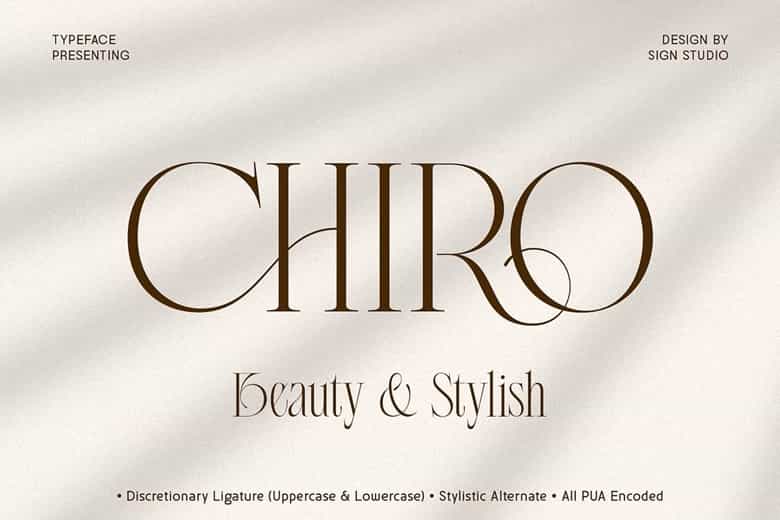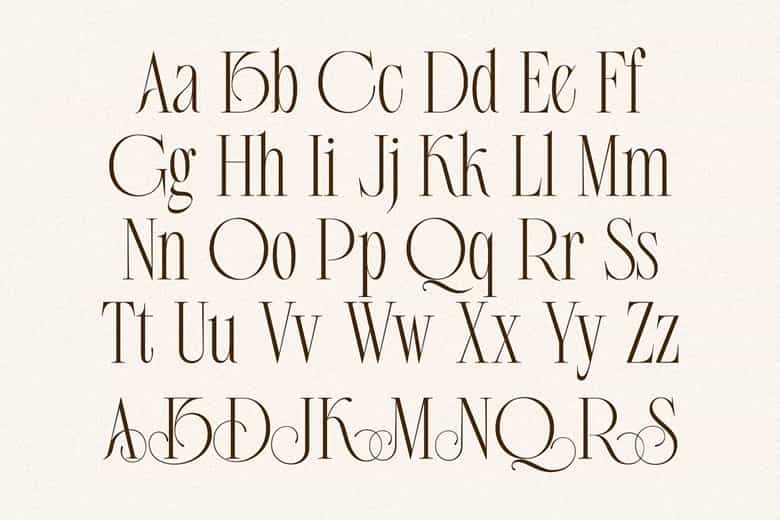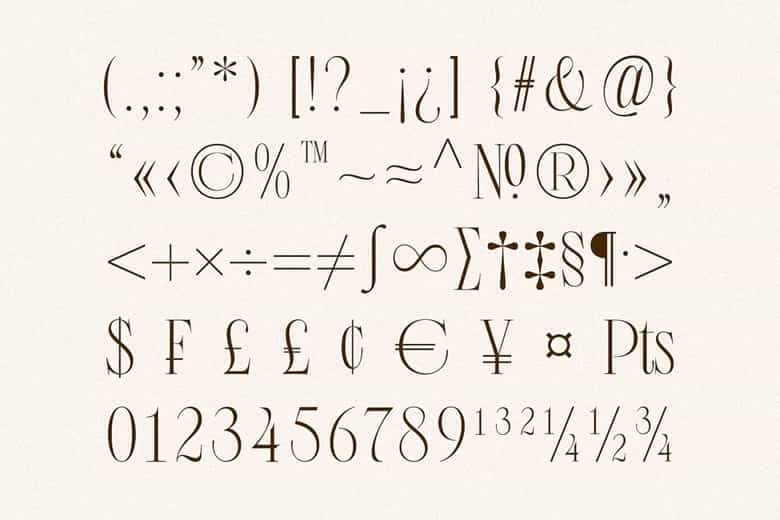
Chiro is a modern and elegant style within the serif font group. The design presents both historical classic elements and current modern styles. The individual design characteristics include moderate contrast in characters coupled with discretionary ligatures as well as alternate characters. The design goal targets complete visual balance throughout the project.